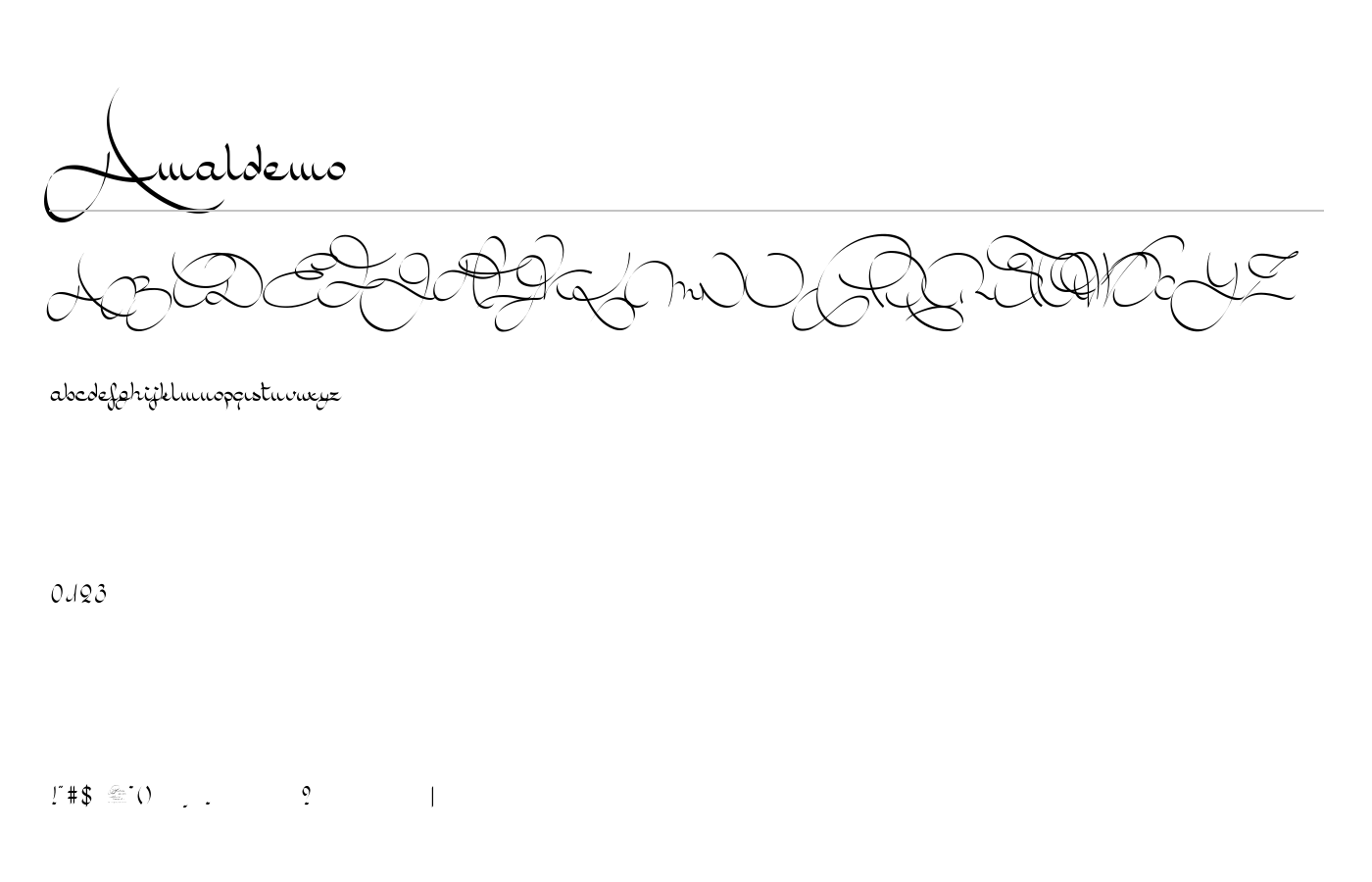
Amaldemo is an elegant, highly decorative script font characterized by its delicate, flowing lines and intricate swirls. Its fine, calligraphic strokes and graceful loops give it a luxurious and artistic feel, making it ideal for sophisticated branding, invitations, and elegant logos where a touch of vintage charm and flair is desired. This font is best suited for display use, where its ornamental details can shine without compromising readability.
Amaldemo Font
About Amaldemo Font